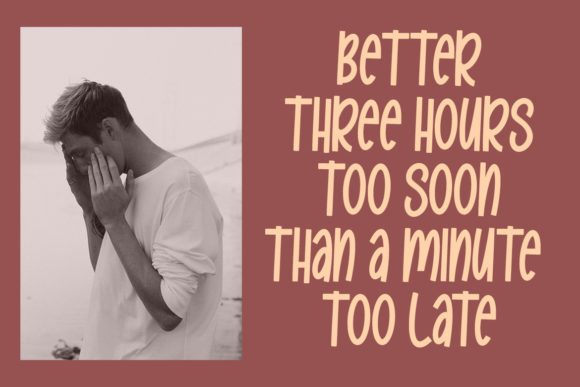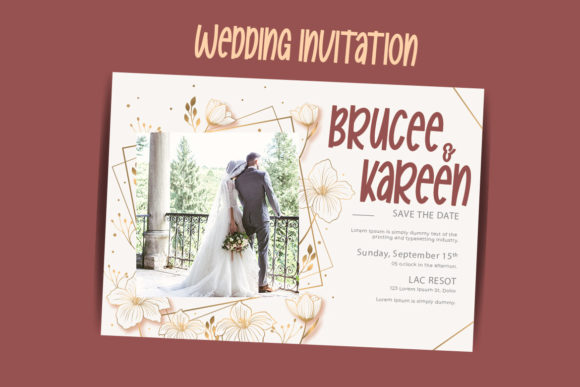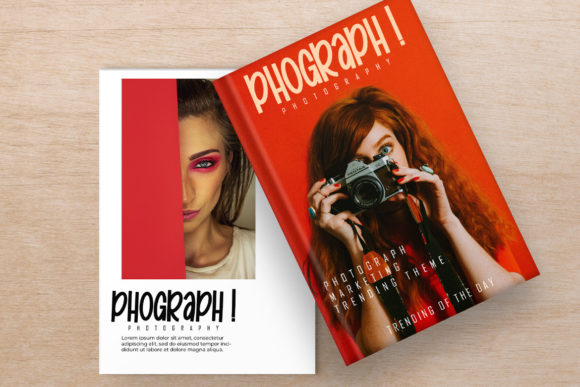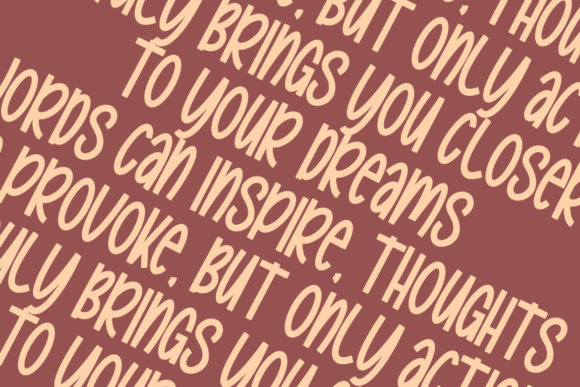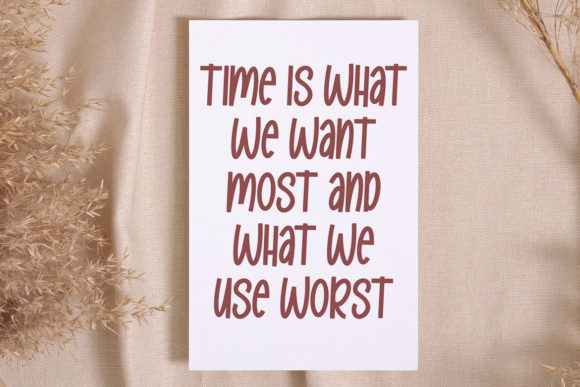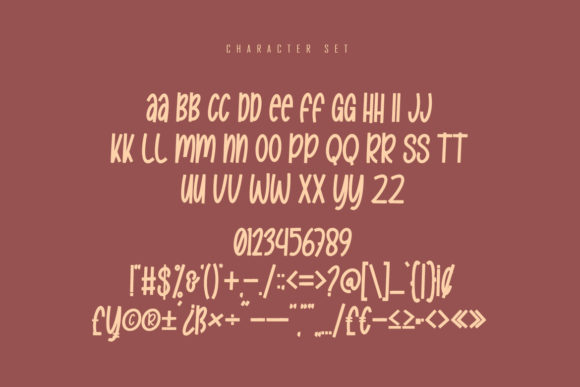
Introduction to Kabhedo Font
Have you ever been in the middle of a creative project, staring at a blank page or screen, desperately searching for the perfect font to bring your idea to life? You know the feeling when you just can’t seem to find that one design element that makes everything click? This is where the Kabhedo Font comes in – a game-changing, high-quality design resource that can breathe new life into even the most mundane projects.
| 👤 Author | Skiiller Studio |
As a designer, you’re constantly on the lookout for versatile fonts that can be easily adapted to fit a wide range of creative projects. The Kabhedo Font delivers, offering a simple yet playful sans serif design that can be paired with a transparent background to create a truly eye-catching visual effect. Whether you’re working on a logo, brochure, or website, this free download is an absolute must-have for any serious design enthusiast.
- High-quality design resource ideal for creative projects, including graphics, logos, and branding materials.
- Transparent background, allowing for easy customization and integration into various design elements.
- Unique characteristics include its modern, minimalist aesthetic and versatile style, making it suitable for a wide range of creative projects.
- Perfect for designers, artists, and creatives looking for a high-quality, free design resource to enhance their work.
Honest Review: Kabhedo Font
I recently had the chance to experiment with the Kabhedo Font, and I must say it’s a fantastic addition to any designer’s toolkit. This high-quality font is perfect for those looking to add a unique touch to their creative project.
One of the standout features of the Kabhedo Font is its transparent background, making it incredibly versatile for use in a variety of design contexts. Whether you’re working on a logo, graphic, or digital product, this font is sure to impress.
Here are some of the things that work well with the Kabhedo Font:
- High-quality design: The font is meticulously crafted to ensure a professional finish.
- Easy to use: The font is incredibly easy to use, even for those with limited design experience.
While the Kabhedo Font is an excellent choice, there are a few limitations to be aware of:
- Limited character set: The font only includes a limited set of characters, which may be a drawback for designers working on projects that require a wide range of characters.
- No variations: The font doesn’t come with any variations, such as bold or italic, which may limit its use in certain design contexts.
Overall, I’m thoroughly impressed with the Kabhedo Font. It’s a fantastic resource for designers, and I highly recommend it for any creative project. With its high-quality design, transparent background, and free download, it’s an absolute must-have for any design enthusiast.
Kabhedo Font
The Kabhedo Font is a unique and versatile design resource that can elevate any creative project. With its high quality and transparent background, it’s perfect for designers and artists looking for a distinctive touch.
Use the Kabhedo Font in bold and italic styles to add emphasis to your text. Experiment with different font sizes to create visual interest. Combine the Kabhedo Font with other design elements to create a unique look.
The Kabhedo Font is perfect for creative projects such as brochures, posters, and social media graphics. It’s also great for use in branding and marketing materials, such as business cards and letterheads.